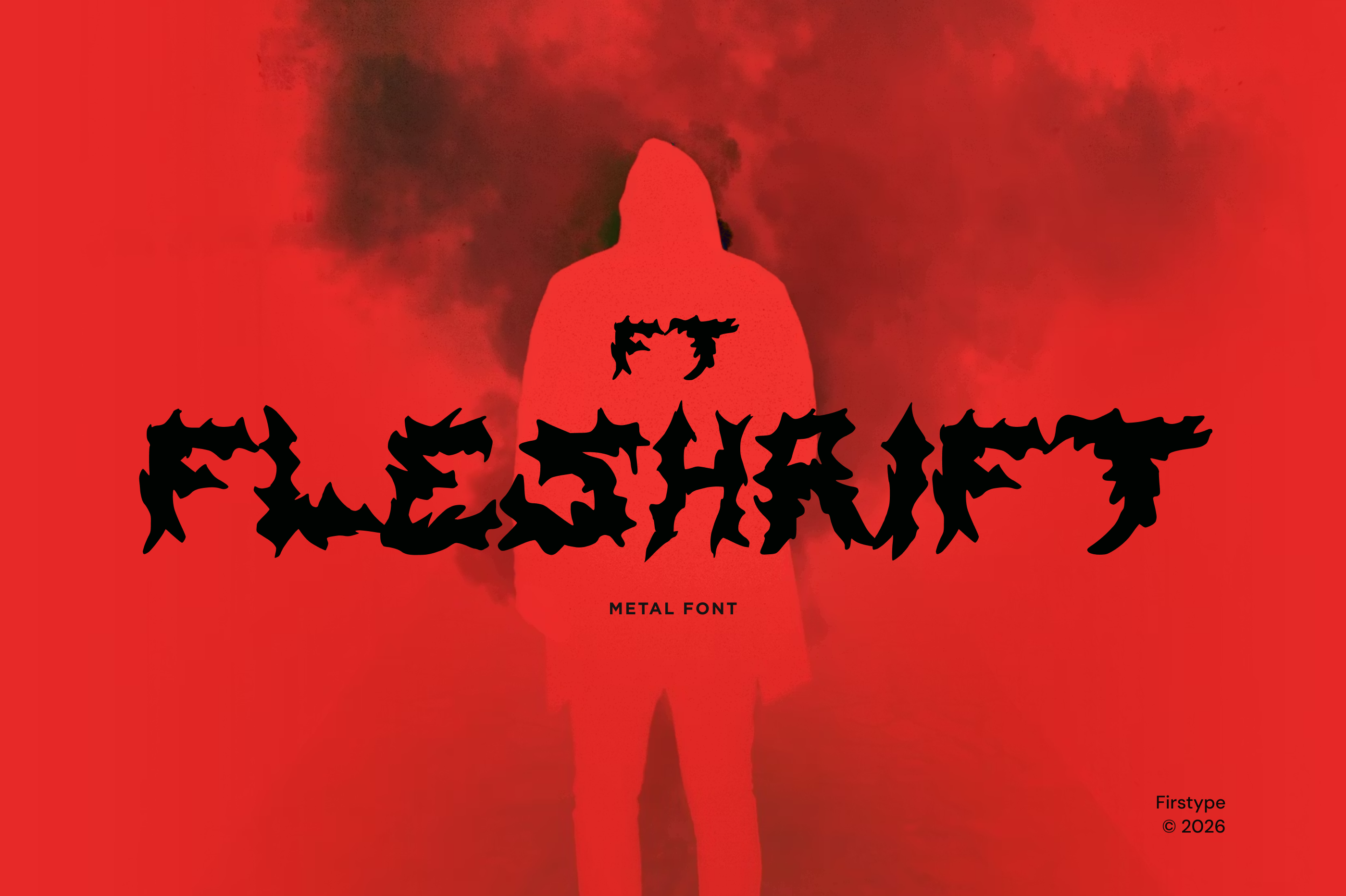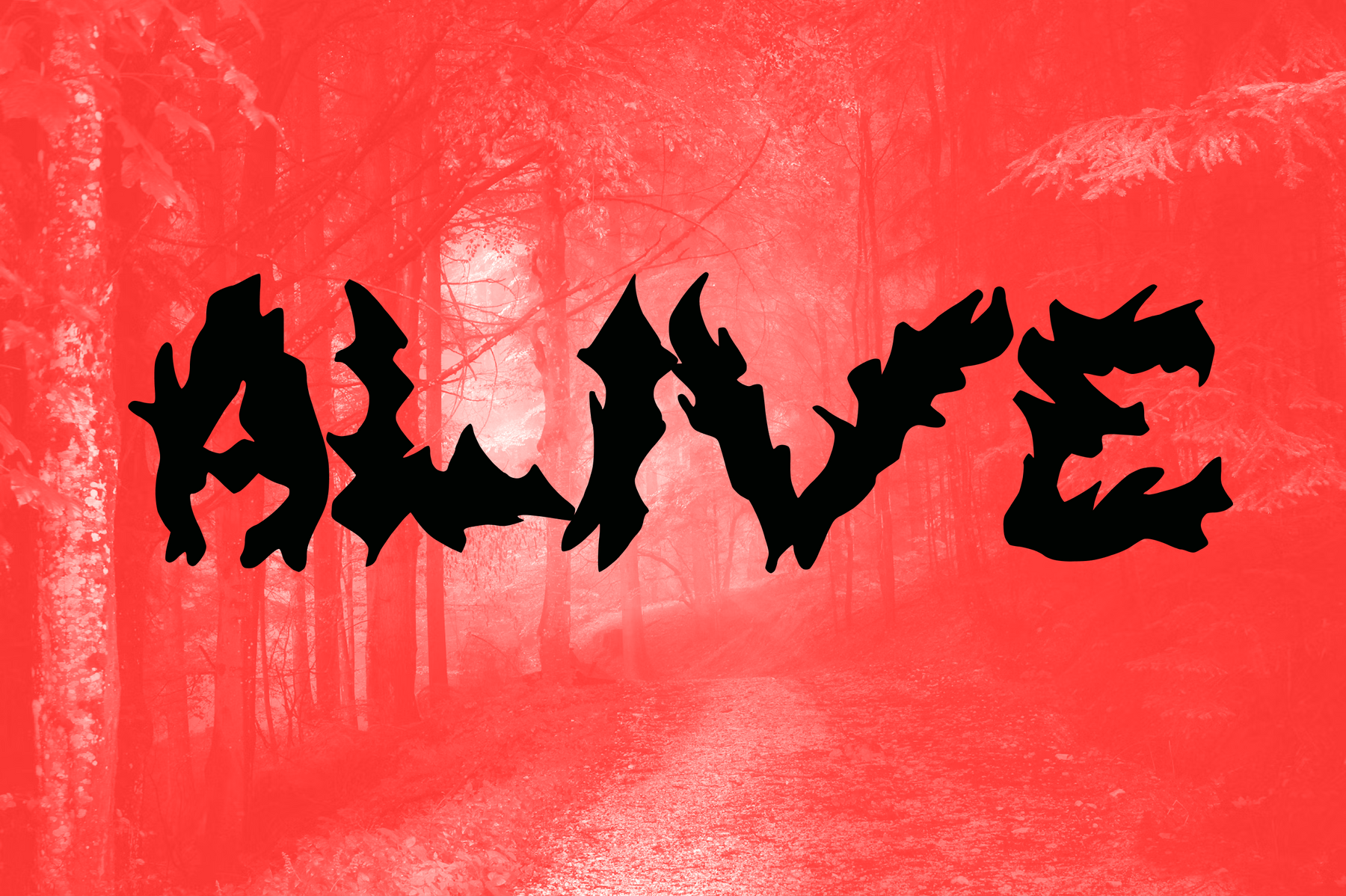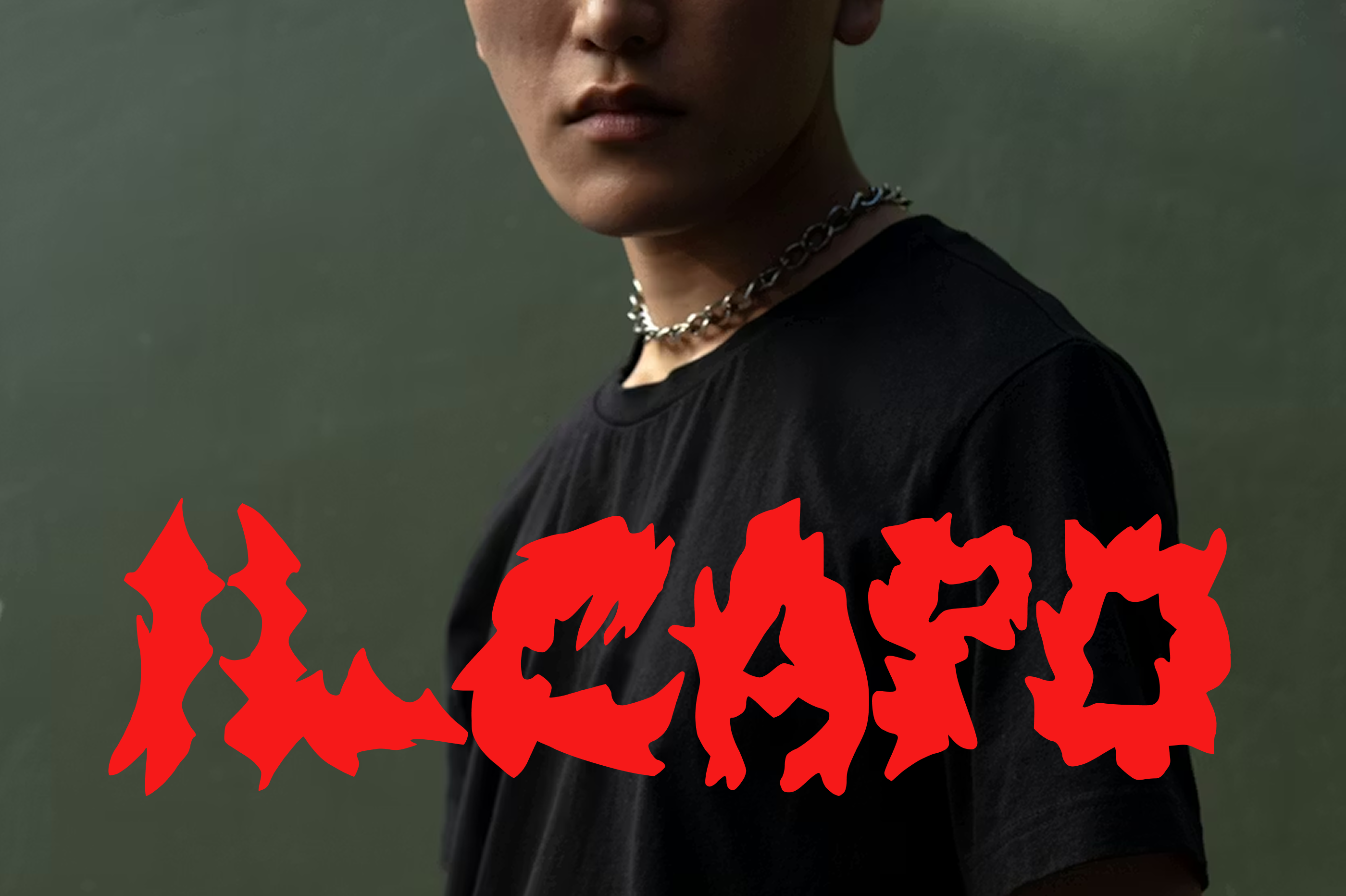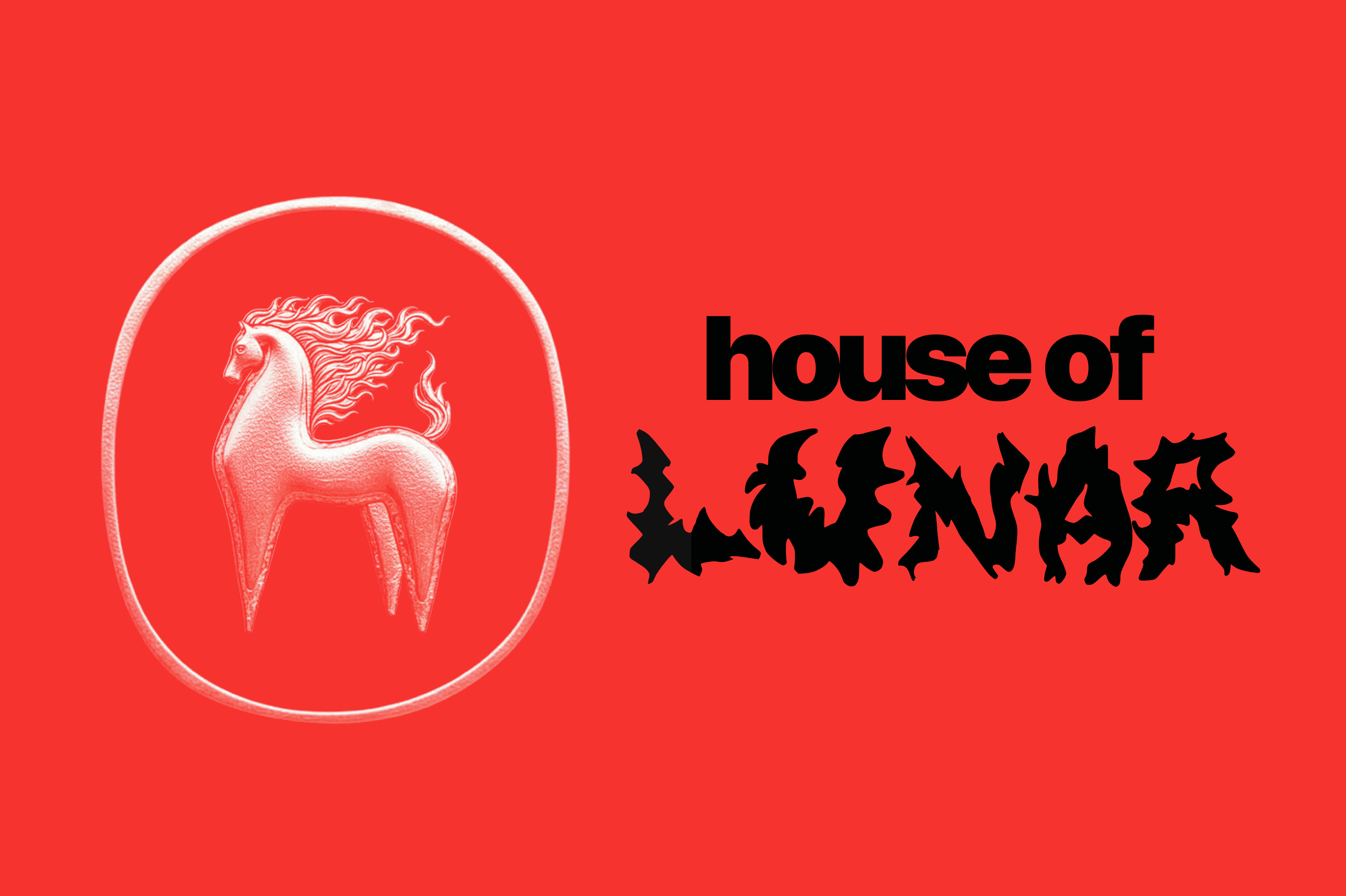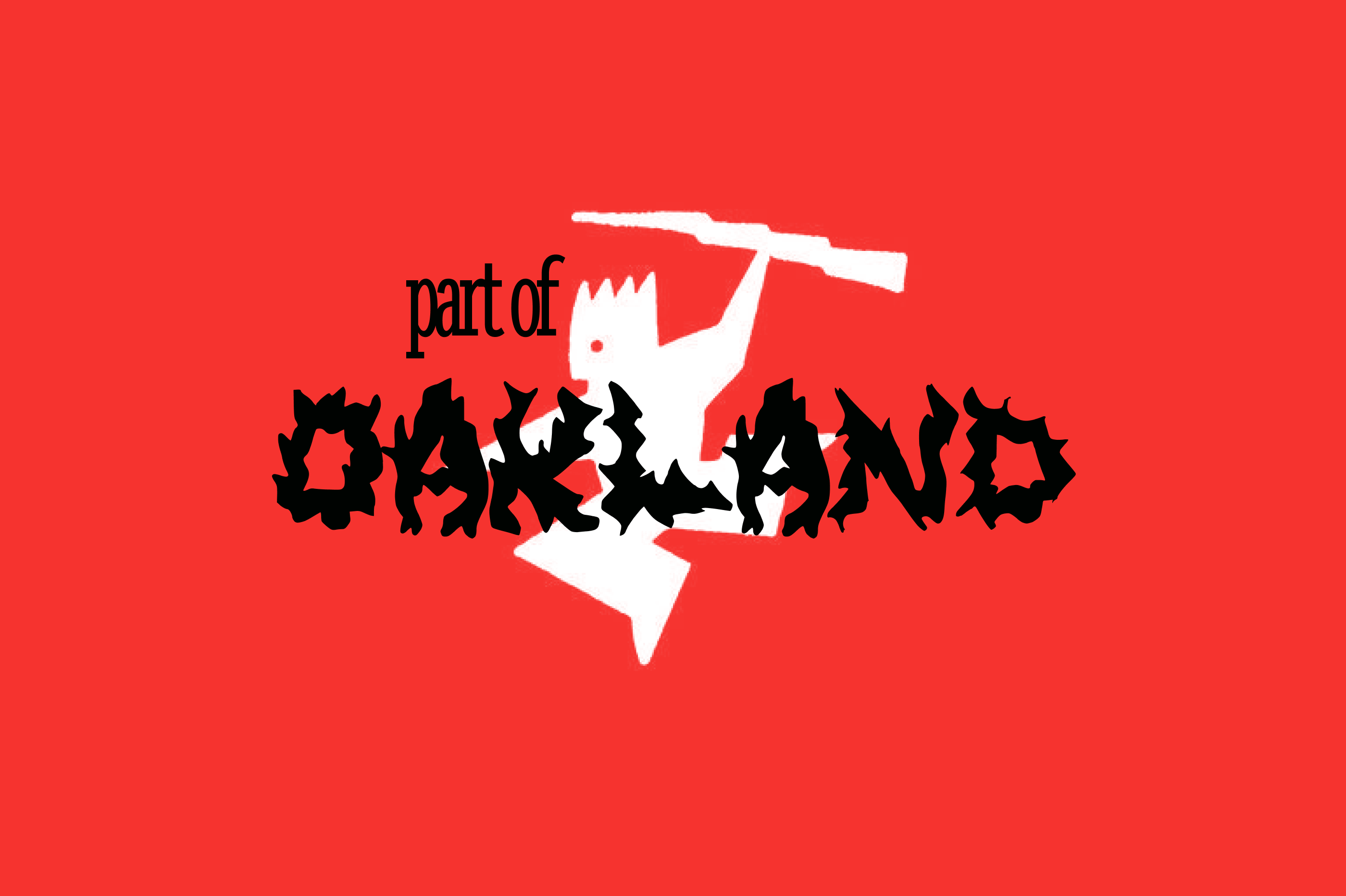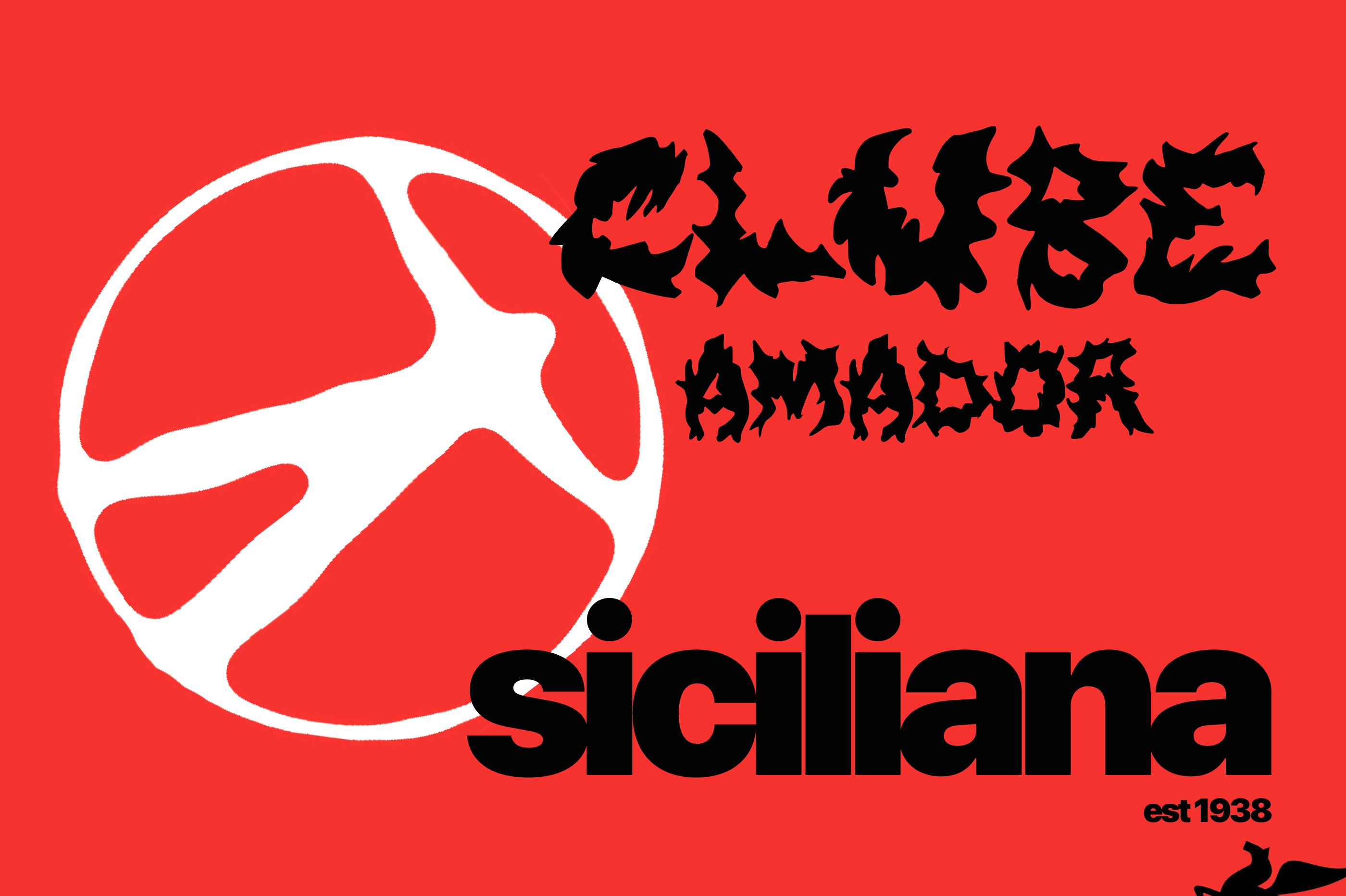
Descend into Darkness: Introducing FT Fleshrift by Firstype Studio.
Unleash a raw, visceral aesthetic with FT Fleshrift, our latest high-impact metal display font. Designed with jagged, organic, and aggressive letterforms, FT Fleshrift captures the intense, gritty spirit of underground metal culture. As shown in A.jpg, this typeface is built for designs that demand a sense of danger, chaos, and uncompromising strength.
Whether you are crafting legendary album art, designing tour posters that dominate the stage, or creating rebellious streetwear apparel, FT Fleshrift provides the ultimate visual weapon to set your project apart. Its shredded, "flesh-like" texture brings a tactile, dark energy to every headline it adorns.
✨ Key Features:
Visceral Metal Aesthetic: Brutal, jagged forms that evoke a raw, organic power.
High-Impact Display: Engineered to command attention on posters, logos, and merchandise.
Professional Quality: Meticulously crafted for seamless digital output and sharp vector rendering.
Versatile Chaos: Perfect for heavy metal branding, music industry assets, and dark-themed editorial layouts.
FT Fleshrift Display: A powerful, aggressive metal-style typeface.